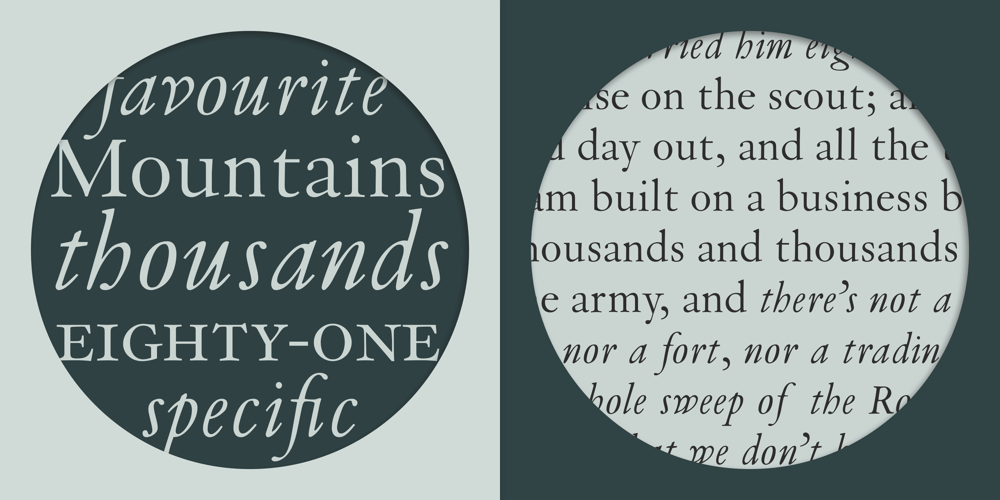
Van Dijck
Van Dijck font
Van Dijck Font Family was designed by Christoffel van Dijck, Jan van Krimpen, Monotype Design Studio and published by Monotype. Van Dijck contains 2 styles and family package options. The seventeenth century Dutch old faces have a distinct character of their own, and were the source for eighteenth century English type designs, such as Caslon. Christoffel van Dijck was one of the great Dutch typefounders, although this face, which bears his name, may not have been cut by him, it is nevertheless representative of the best designs from that period. The Van Dijck italic, for which original punches survive, is almost certainly the work of van Dijck. Drawn at Monotype under the supervision of Jan van Krimpen. The Van Dijck font is a graceful typeface, best used for setting books, quality magazines and articles.